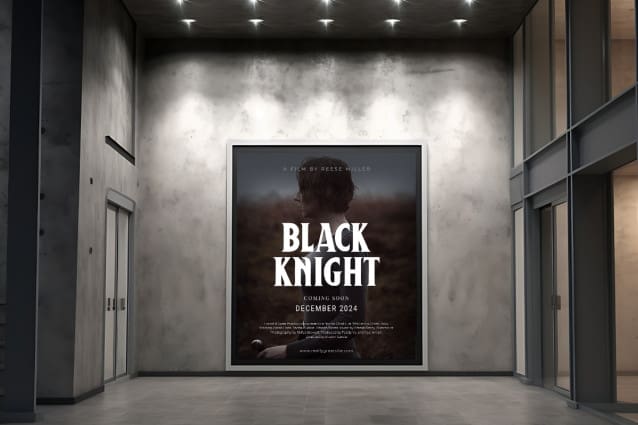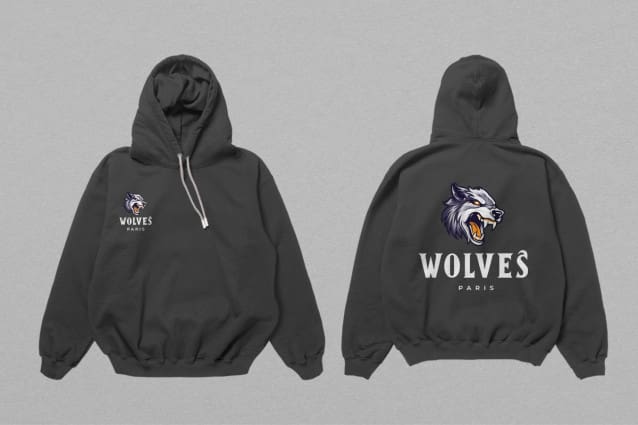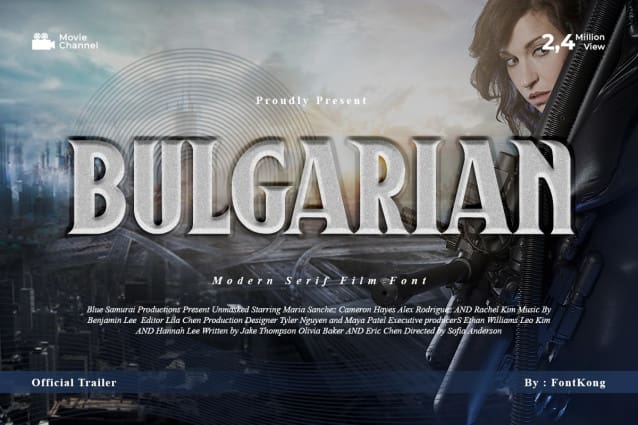
Bulgarian Font
Bulgarian Font – Modern Serif Film Font is created to present a simple and elegant impression to anyone who sees us. This is in line with the character of the letters which are very clean without unnecessary knick-knacks in each letter. Bulgarian Font – Modern Serif Film Font stands tall and exudes a confident vibe. People who read various texts using this font do not need to bother to be able to read and understand it, in other words, this is a legible font.
As the name implies, Bulgarian Font – Modern Serif Film Font is perfect for use in various formal events, such as weddings and multiple parties. This font is modern fonts and elegant fonts. It can be used for fashion branding, business cards, book covers, and magazine covers. This font can be printed in small or large sizes and still looks great up close or afar.
Not only that, this type of font can be used on the web. It can be used as a film font, in the intro and outro of the film. This font is also suitable for use as a children’s fairy tale title font that has a fantasy theme.
For those who are simple and don’t like the look of busy designs on their clothes, they will choose clothes with typography in them. Bold and clean, the Bulgarian Font – Modern Serif Film Font can look great when used correctly.